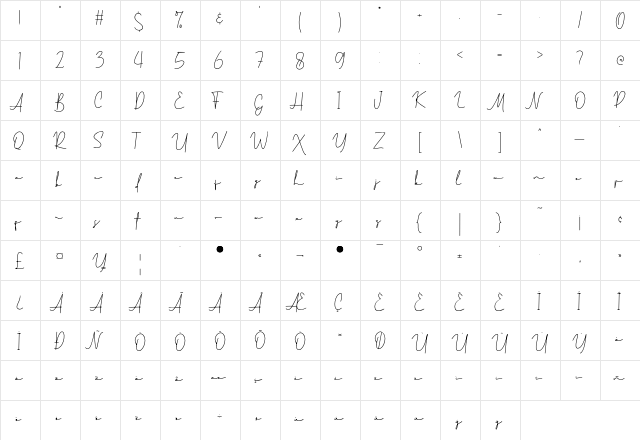
Mitchell Signature Regular
Design Context for Mitchell Signature Typeface
Mitchell Signature is a composed and adaptable typeface that performs quietly and consistently across a wide range of design contexts.